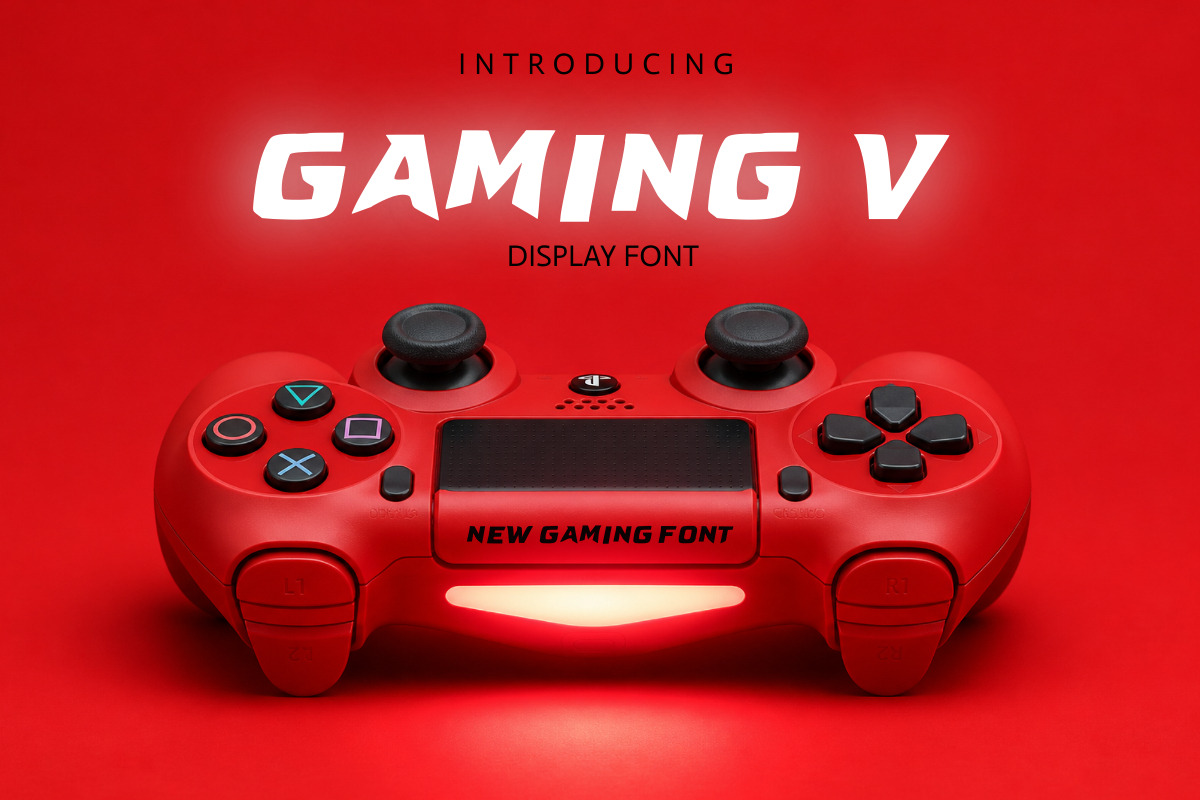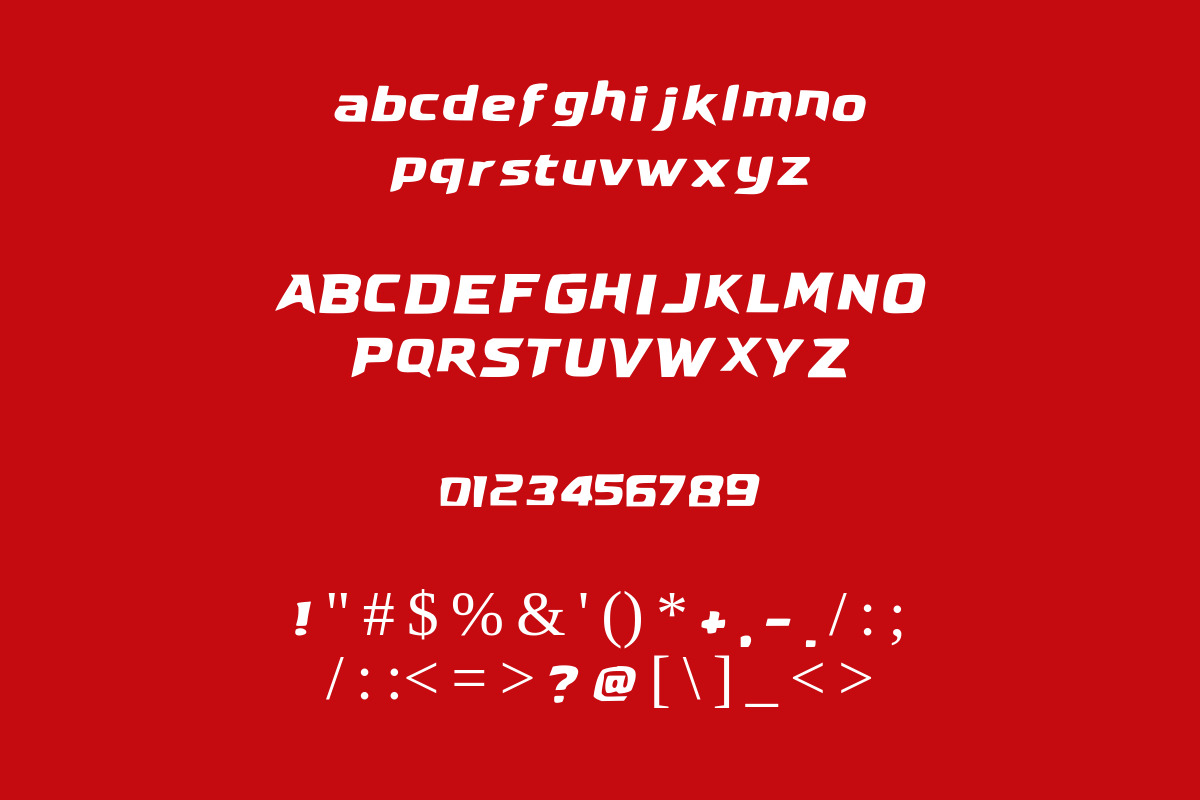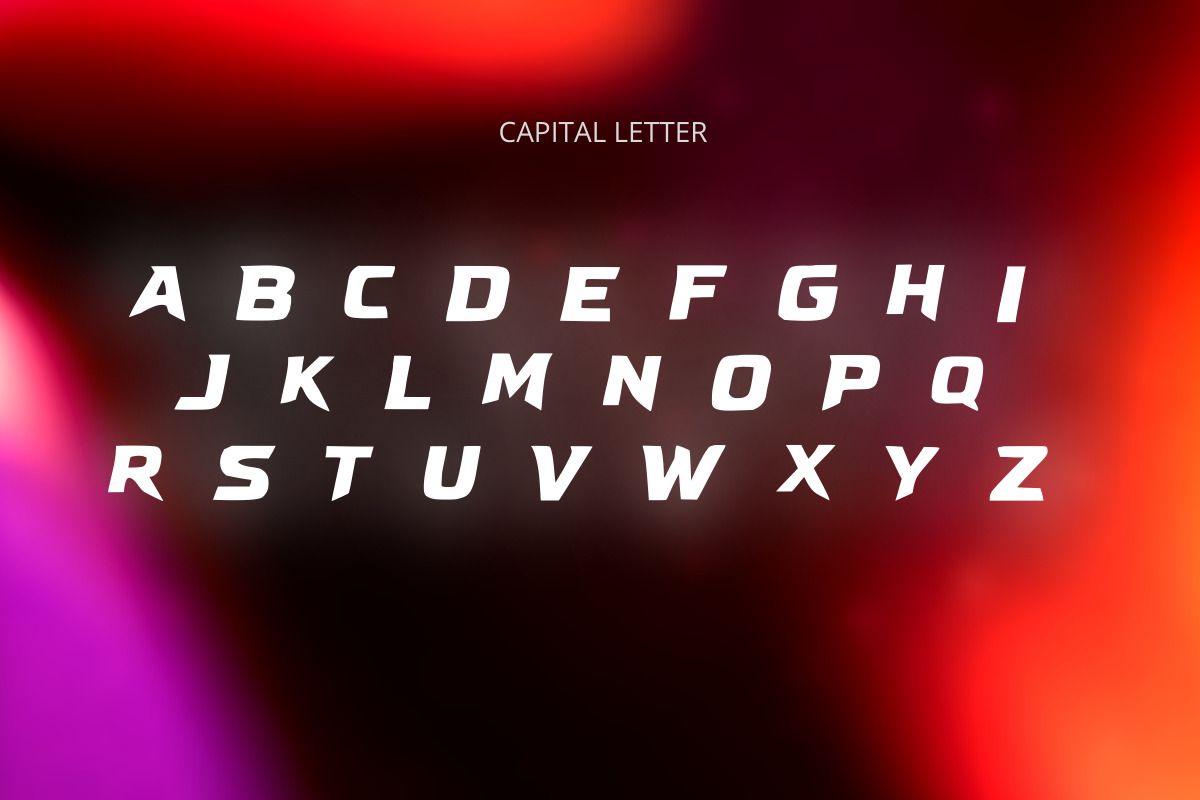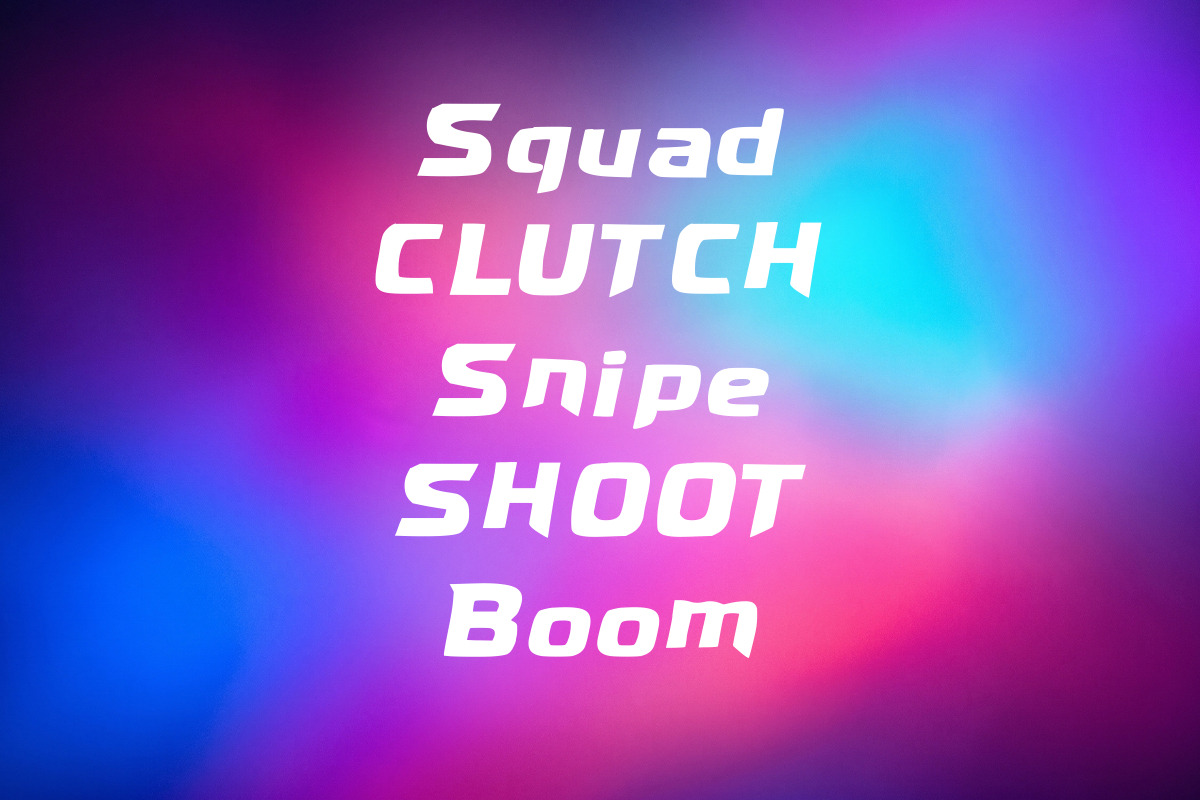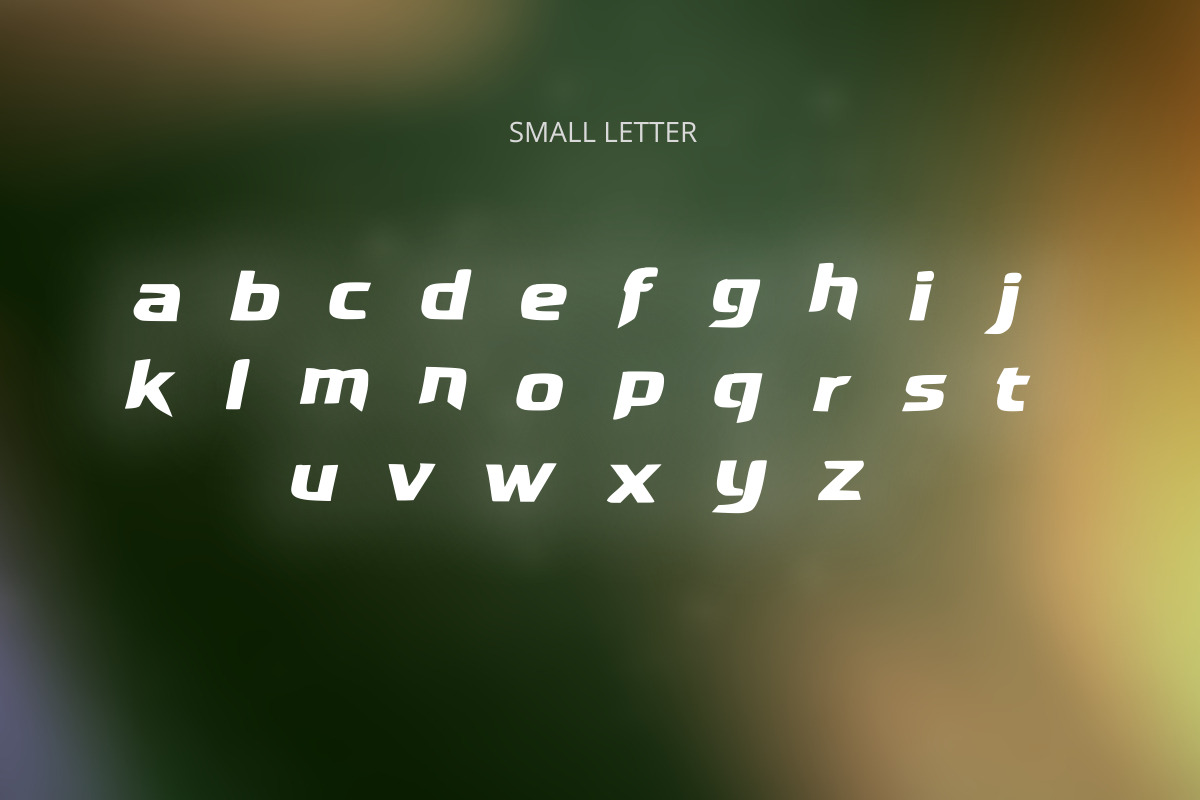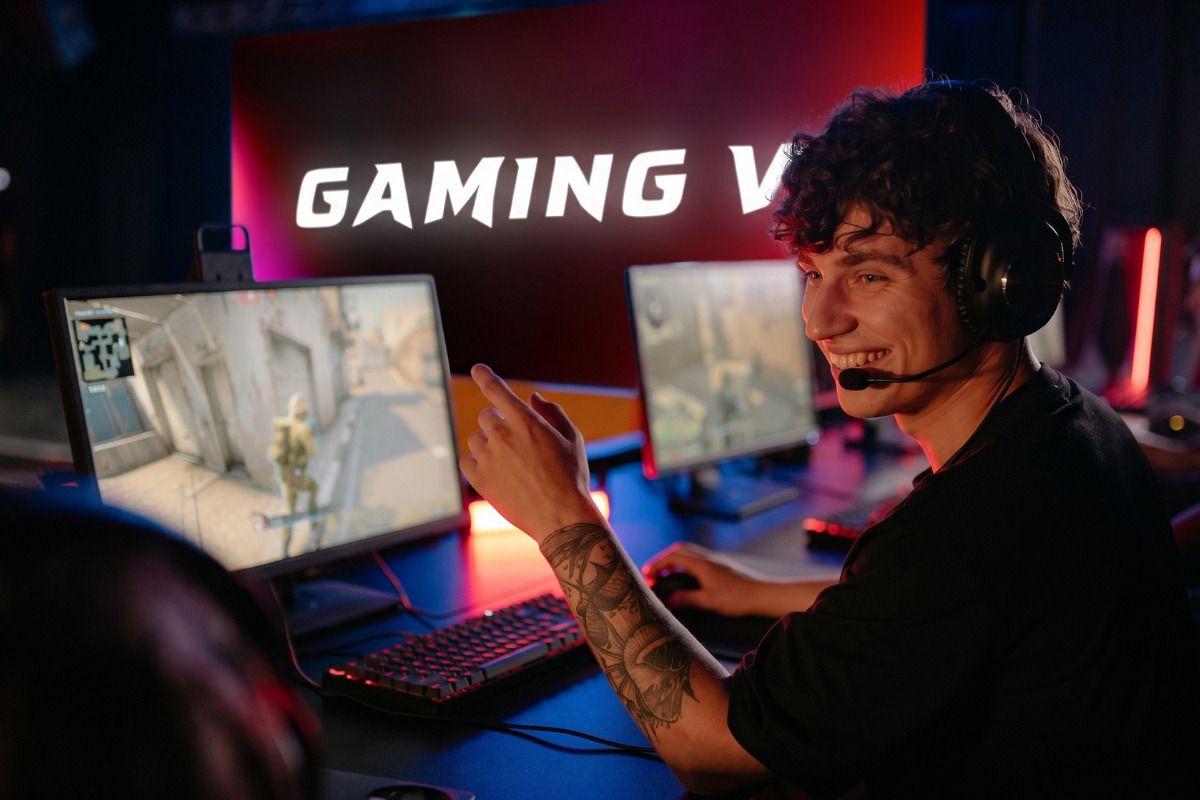
Gaming V Bold Gaming Display Font
Introducing Gaming V — a bold, aggressive italic display font engineered for the world of gaming, esports, and high-performance branding. Every letterform is built with precision: sharp angles, confident weight, and a forward-leaning italic stance that communicates speed, dominance, and energy.
Whether you're designing an esports team logo, a gaming YouTube thumbnail, a Twitch overlay, a tournament bracket, or a game-inspired product label, Gaming V delivers the intensity your audience expects — and the legibility your design demands.
Why Designers & Gamers Love This Font
• Aggressive italic angle gives every word a sense of speed and forward motion
• Bold, rounded sans-serif construction stays sharp and readable at any size
• Strong uppercase presence — ideal for team names, logos, and hero headlines
• Clean, consistent letterforms that render crisply on screens, merch, and print
• Pairs perfectly with dark backgrounds, neon colors, and glitch-style effects
• No serifs, no noise — pure impact
• Esports team logos and clan branding
• Gaming YouTube thumbnails and channel art
• Twitch stream overlays and panels
• Tournament posters and event banners
• Game controller and peripheral packaging
• Gaming merchandise — jerseys, hoodies, mouse pads
• Mobile and PC game UI and title screens
• Sports brand identities and athletic apparel
• Social media headers and gaming content
• Single style — bold italic display weight, optimised for headlines and large-scale use
• No additional weights, obliques, or alternate variants — what you see in the previews is exactly what you get
- Gaming V is a display font, best used at heading and title sizes (24pt and above). For supporting body copy, pair it with a clean neutral sans-serif like Barlow, Rajdhani, or Inter for a polished gaming-brand look.